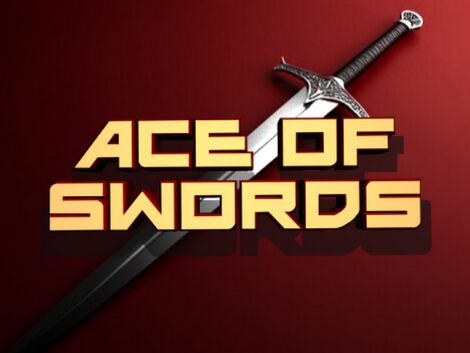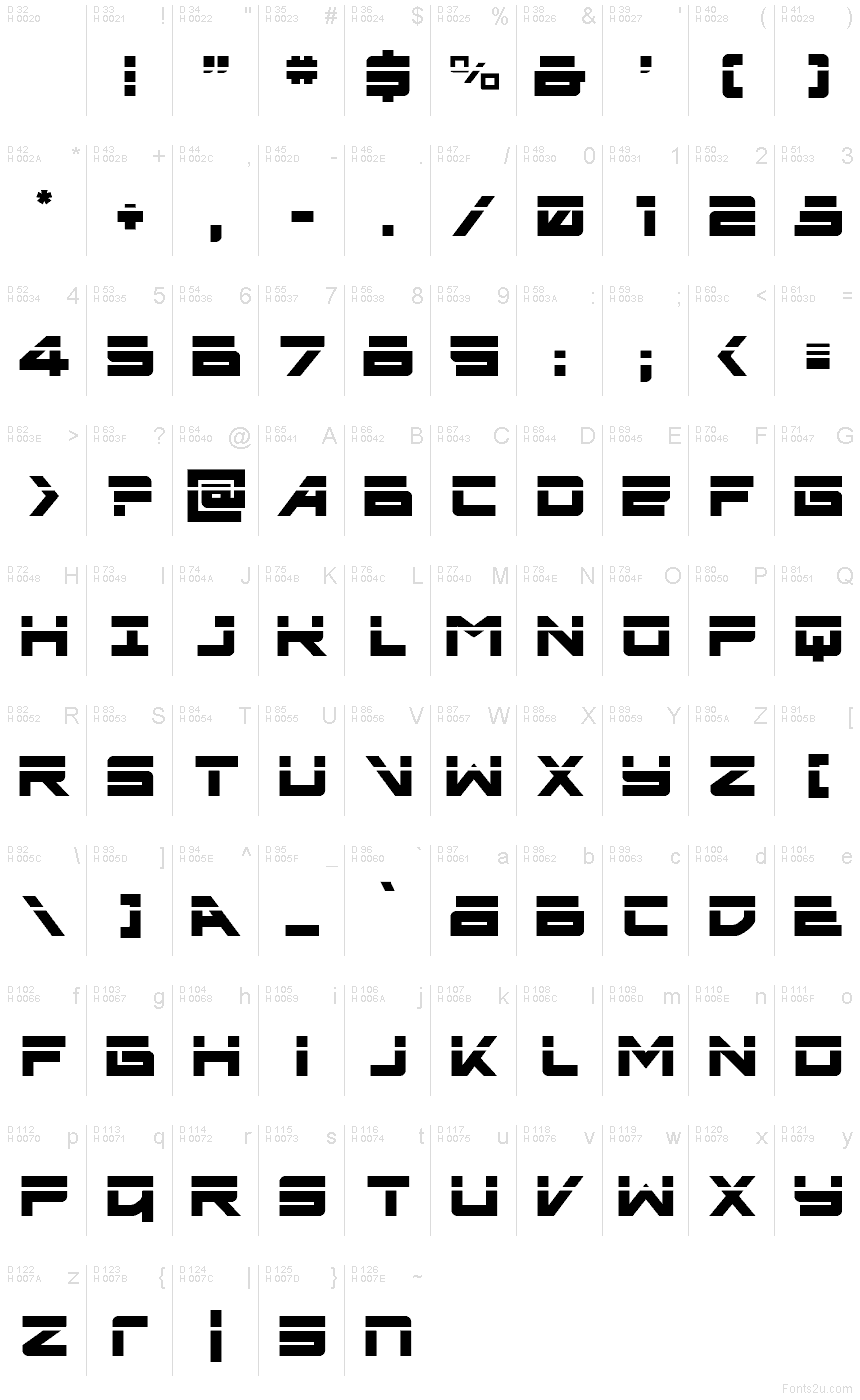
Ace of Swords Laser
Ace of Swords Laser font by Iconian Fonts is a free techno display typeface from the Ace of Swords family that looks like it’s carved from neon beams. Angular forms, sharp corners, and sliced-through strokes create a staccato rhythm that feels fast, digital, and a little dangerous. The tight spacing and geometric cuts give every word a sense of motion, as if the letters are flickering across a sci-fi interface or racing HUD.
Using Ace of Swords Laser, headlines don’t just sit on the page—they slash across it. This free font works beautifully for gaming logos, esports branding, synthwave or cyberpunk posters, tech event titles, YouTube intros, and futuristic album covers. Keep it large so the laser-like cuts stay crisp, and pair it with a simple, unobtrusive sans serif for body text to let the jagged energy of Ace of Swords Laser take the spotlight.